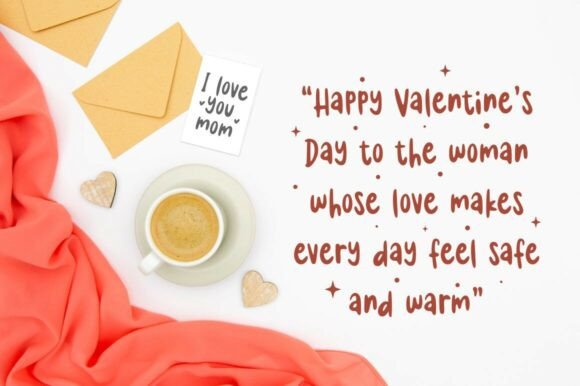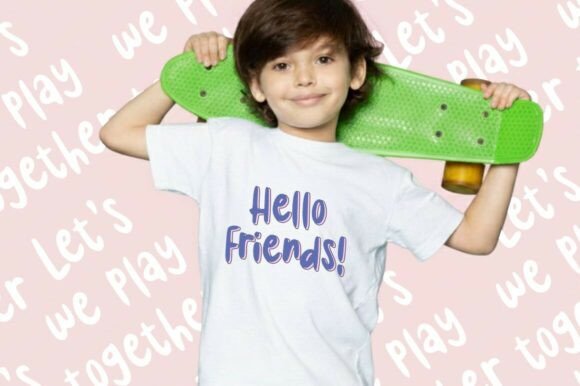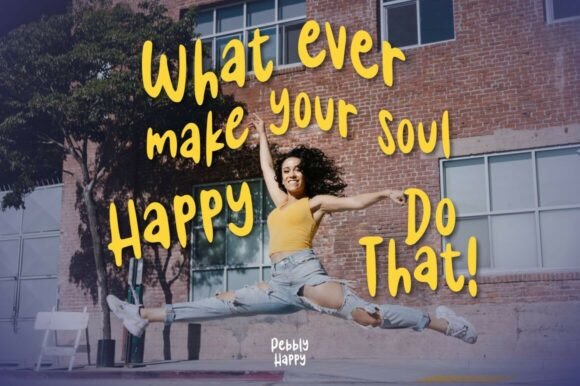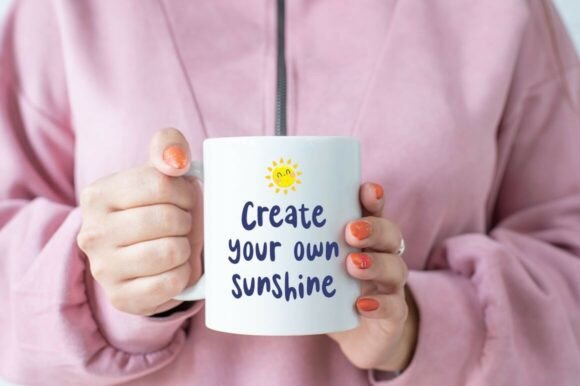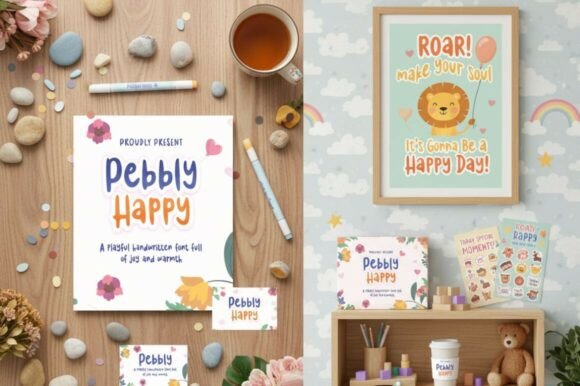
Introduction to Pebbly Happy Font
Remember that moment when you were a child, scribbling with crayons on a bright blue piece of paper, letting your imagination run wild? That same carefree spirit is what the Pebbly Happy Font embodies, bringing a touch of whimsy and joy to any design project. This delightful handwritten typeface is characterized by its rounded, pebble-like letterforms and a bouncy rhythm that perfectly captures the spontaneity of childhood creativity.
As a valuable design resource, the Pebbly Happy Font is an exceptional choice for children’s educational materials, playful nursery decor, and vibrant social media headers that need to radiate positivity. With its high legibility and expressive charm, it’s sure to engage your audience and leave a lasting impression. Plus, with a transparent background, you can easily combine it with other design elements to create a unique visual identity.
Whether you’re working on a free download project or a high-quality commercial campaign, the Pebbly Happy Font is a must-have for designers who want to add a touch of warmth and personality to their creative project. Its friendly silhouette bridges the gap between the creator and the audience, making it an ideal choice for toy store branding, colorful birthday invites, or family-oriented websites.
Key Features of Pebbly Happy Font
- This high-quality font features a unique, playful design with a transparent background, perfect for adding a touch of whimsy to your work.
- This font features a large character set, including uppercase and lowercase letters, numbers, and punctuation marks, making it suitable for a variety of creative projects.
- One of the unique characteristics of the Pebbly Happy Font is its ability to add a fun, childlike feel to any design, making it perfect for projects targeting a younger audience.
Honest Review: Pebbly Happy Font
I recently stumbled upon the Pebbly Happy Font while searching for a unique design resource to spice up my creative project. I was excited to try it out and see if it would meet my expectations.
What works well: ✨ The font is incredibly versatile and can be used for both digital and print designs. The Pebbly Happy Font is also available for free download, which is a huge plus. The font’s high quality is evident in its crisp lines and clean design. I particularly liked the transparent background, which makes it easy to combine with other design elements.
- The font is perfect for creating a fun and playful atmosphere in designs.
- The high-quality design ensures that it will look great even at large sizes.
Limitations: ⚠️ The font may not be suitable for more formal or professional designs, as it has a rather playful tone. Additionally, some users may find the font’s irregular shapes and lines to be a bit too unconventional.
Overall impression: I was pleasantly surprised by the Pebbly Happy Font. It’s a great addition to any design collection and can add a fun touch to creative projects. While it may not be suitable for all designs, it’s definitely worth considering for projects that require a more playful and whimsical feel.
Pebbly Happy Font
The Pebbly Happy Font is a unique design resource that can elevate your creative project to the next level. With its high-quality, transparent background, this font is perfect for adding a touch of whimsy to your designs.
Tips for Getting the Most Out of the Pebbly Happy Font
To get the most out of the Pebbly Happy Font, try combining it with other design elements, such as graphics and images, to create a unique and eye-catching design. You can also experiment with different font sizes and colors to add emphasis and interest to your designs.